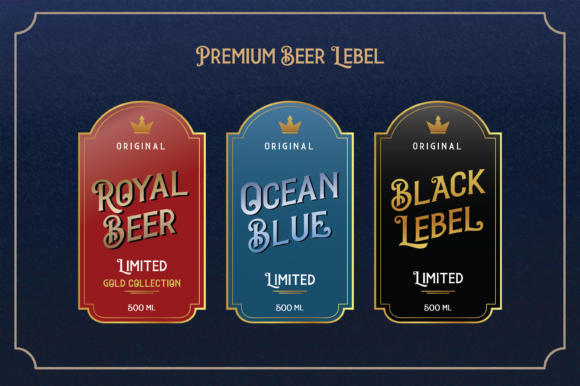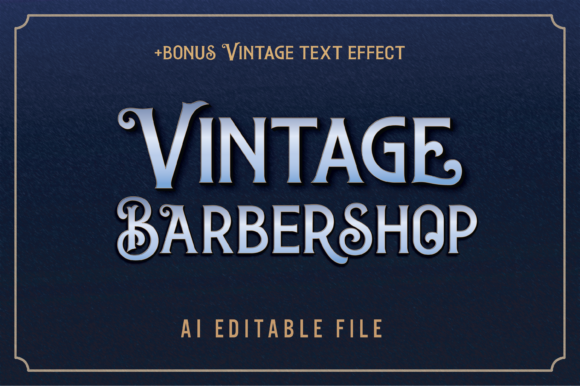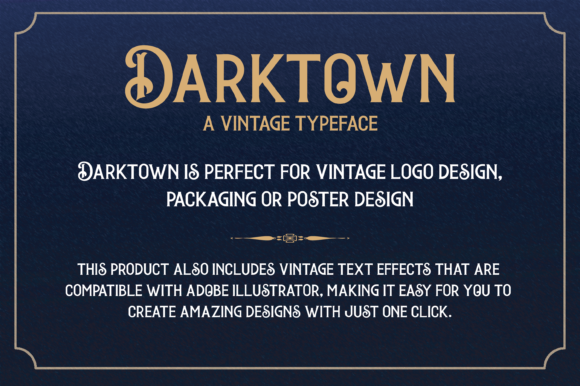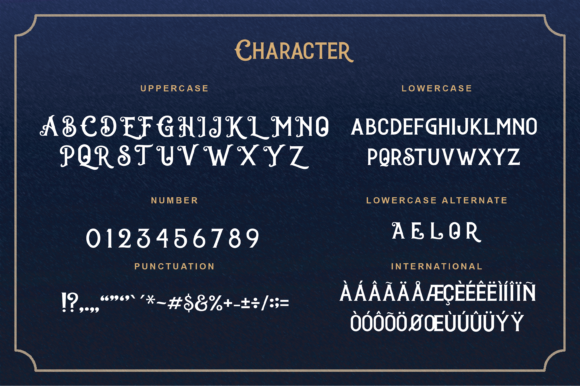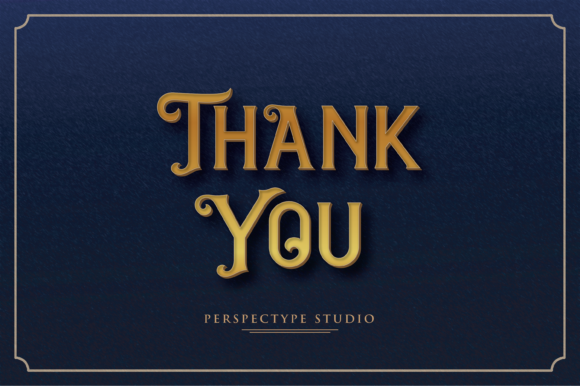
Introducing Darktown Font: The Perfect Addition to Your Circus or Carnival-Themed Project
Are you a designer or crafter looking for a unique and eye-catching font to add a touch of nostalgia and excitement to your circus or carnival-themed project? Look no further than Darktown Font! This bold and fun vintage display typeface is sure to capture the attention of your audience and transport them to a world of wonder and excitement.
What is Darktown Font?
Darktown Font is a carefully crafted typeface that embodies the spirit of a bygone era. With its bold lines, curvaceous shapes, and playful flair, this font is reminiscent of the classic signs and posters that once adorned the sideshows and attractions of traveling circuses and carnivals. Whether you’re designing a logo, creating a poster, or crafting a website, Darktown Font is the perfect choice for adding a touch of vintage charm and personality to your project.
Key Features of Darktown Font
• Bold and Fun Design: Darktown Font features a bold and playful design that’s sure to grab attention and add a touch of excitement to your project.
• Vintage Display Typeface: This font is a classic vintage display typeface that’s perfect for creating eye-catching headlines, titles, and captions.
• Circus and Carnival Themes: Darktown Font is specifically designed with circus and carnival themes in mind, making it the perfect choice for designers and crafters working on projects related to these industries.
• Easily Readable: Despite its bold and playful design, Darktown Font is surprisingly easy to read, making it a great choice for both digital and print applications.
How to Use Darktown Font in Your Design Projects
Darktown Font is incredibly versatile and can be used in a wide range of design projects, from posters and flyers to logos and websites. Here are a few ideas to get you started:
• Circus and Carnival Posters: Use Darktown Font to create eye-catching posters and flyers for circus and carnival events.
• Logo Design: Create a bold and memorable logo for your circus or carnival-themed business using Darktown Font.
• Web Design: Add a touch of vintage charm to your website with Darktown Font, perfect for headings, titles, and captions.
• Social Media Graphics: Use Darktown Font to create engaging social media graphics that will help your circus or carnival-themed business stand out.
Why Choose Darktown Font?
So why choose Darktown Font over other fonts and typefaces? Here are just a few reasons:
• Unique and Eye-Catching Design: Darktown Font features a unique and eye-catching design that’s sure to grab attention and add a touch of excitement to your project.
• Highly Versatile: This font is incredibly versatile and can be used in a wide range of design projects, from posters and flyers to logos and websites.
• Easy to Read: Despite its bold and playful design, Darktown Font is surprisingly easy to read, making it a great choice for both digital and print applications.
If you’re looking for a bold and fun vintage display typeface to add a touch of excitement and nostalgia to your circus or carnival-themed project, look no further than Darktown Font. With its unique and eye-catching design, high versatility, and ease of readability, this font is sure to become a go-to choice for designers and crafters working on projects related to these industries. So why wait? Download Darktown Font today and start creating your own amazing designs!